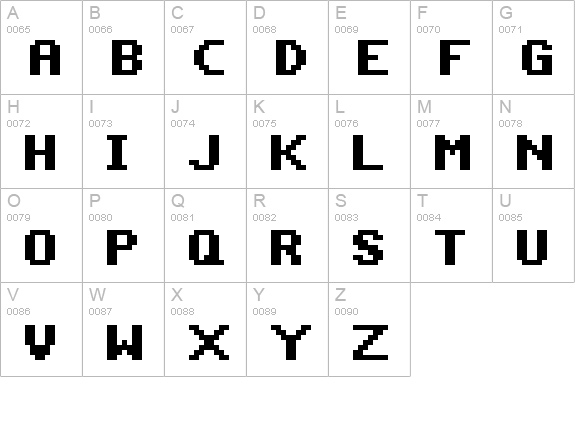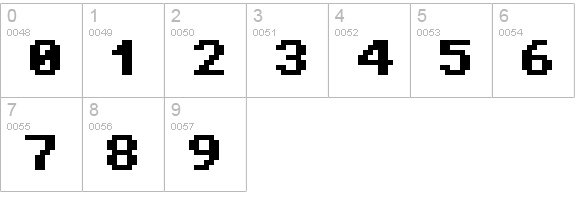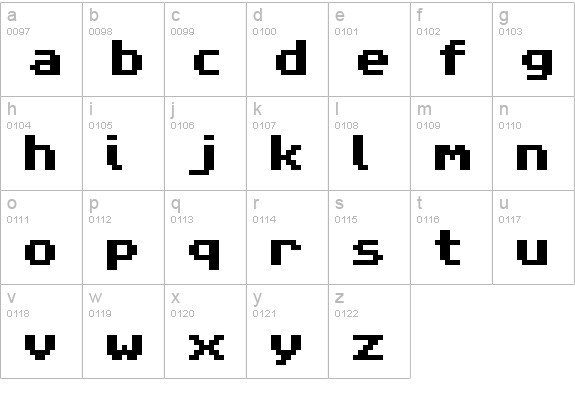
Amiga Forever Pro2 Font Details
The Amiga Forever Pro2 font is a versatile and stylish typeface that exudes a nostalgic charm reminiscent of classic computer systems. With its sleek lines and retro aesthetic, this font is perfect for adding a touch of vintage flair to your design projects. Whether you're creating posters, websites, or branding materials, the Amiga Forever Pro2 font will give your work a unique and eye-catching look. What's even better is that this font is available for free download at FontsMarket.com. You can easily access and use this font in your projects without any cost, making it a valuable resource for designers and creatives looking to add a special touch to their work. Don't miss out on the opportunity to enhance your designs with the Amiga Forever Pro2 font - download it now and start creating stunning visuals today!